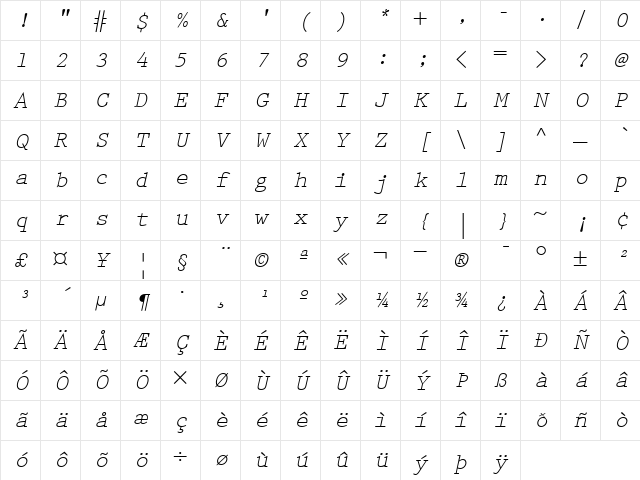
PrestigeEliteSlanted RomanItalic
Style: RomanItalic
Design Context for PrestigeEliteSlanted
PrestigeEliteSlanted is a composed and adaptable typeface that performs quietly and consistently across a wide range of design contexts. The slanted form adds forward momentum and visual energy.